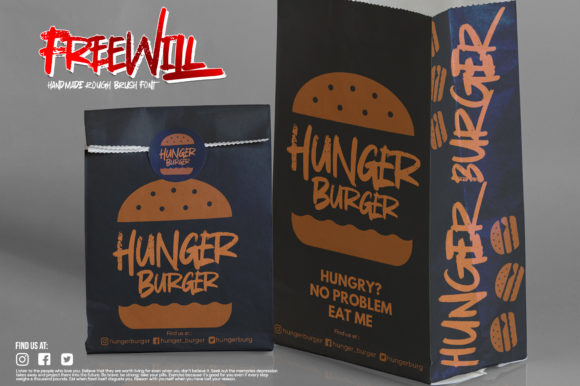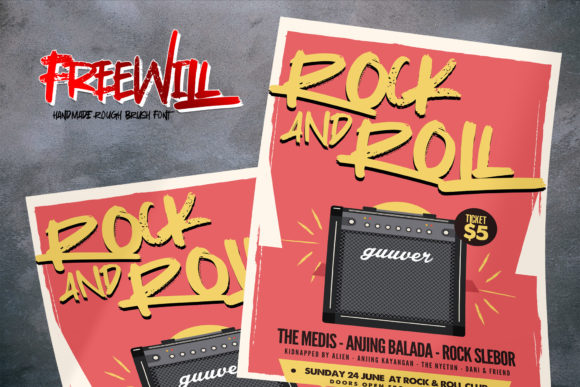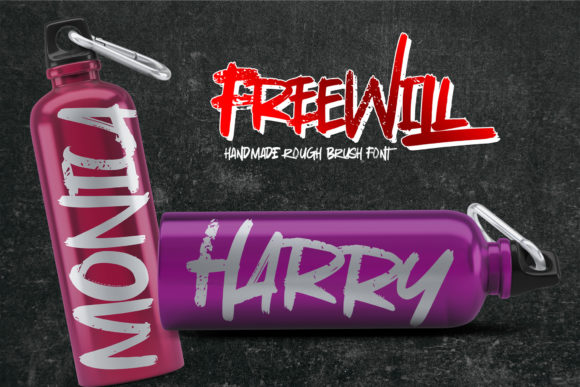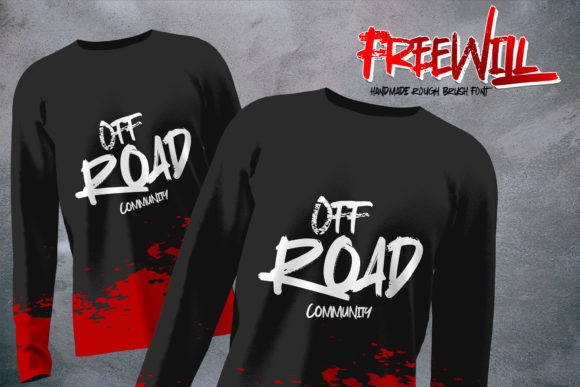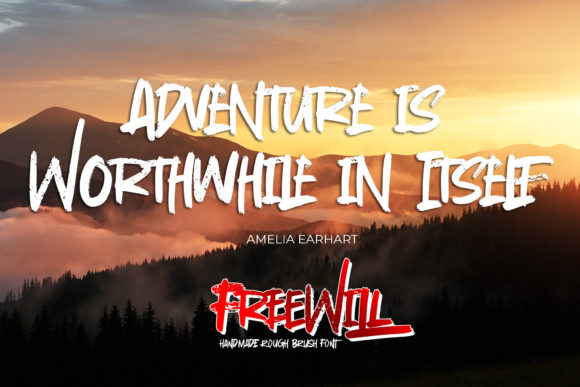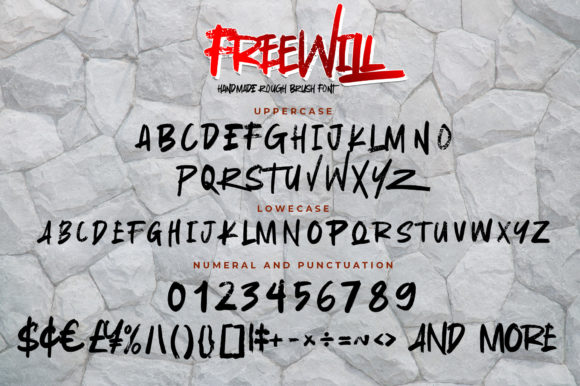
Introducing Freewill Font: The Handmade Rough Brush Font for Creative Designs
Are you a designer or crafter looking for a unique and versatile font to elevate your creative projects? Look no further than Freewill Font, a handmade rough brush font inspired by the famous minimalist logo. With its distinctive texture and rustic charm, Freewill Font is perfect for a wide range of design applications, from brochures and videos to logos, posters, and more.
What is Freewill Font?
Freewill Font is a carefully crafted, handmade rough brush font that exudes a sense of creativity and playfulness. Its rough, textured strokes and irregularities give it a charming, organic feel that’s perfect for designs that require a personal touch. Whether you’re looking to create eye-catching headlines, logos, or posters, Freewill Font is the perfect choice.
Inspiration and Design
Freewill Font draws inspiration from the famous minimalist logo, with a modern twist. The font’s design is characterized by its rough, brush-like strokes and irregularities, which give it a unique, handmade feel. The font’s creator aimed to capture the essence of a rough, hand-painted brush stroke, and the result is a font that’s both elegant and playful.
Use Cases for Freewill Font
Freewill Font is an incredibly versatile font that can be used in a wide range of design applications, including:
- Design templates: Use Freewill Font to create stunning design templates for brochures, flyers, and other marketing materials.
- Videos and advertising: Add a touch of personality to your video scripts and advertisements with Freewill Font.
- Branding and logos: Create memorable logos and brand identities with Freewill Font’s unique, handmade feel.
- Posters and packaging: Use Freewill Font to create eye-catching posters, packaging, and labels for products.
- Coffee shops and restaurants: Add a touch of warmth and personality to your coffee shop or restaurant’s branding with Freewill Font.
- Magazine headers and signs: Use Freewill Font to create striking magazine headers, signs, and posters.
- Gift/postcards and weddings: Add a personal touch to your gift postcards, wedding invitations, and other special occasion designs.
Special Use Cases: Halloween, Horror, and Children’s Books
Freewill Font is also perfect for designs that require a spooky or playful touch. Some special use cases include:
- Halloween posters: Create spooky and eye-catching Halloween posters with Freewill Font’s rough, textured strokes.
- Horror posters: Use Freewill Font to create eerie and unsettling horror posters that will leave your audience on the edge of their seats.
- Children’s books and cartoons: Add a playful and whimsical touch to your children’s books, cartoons, and comics with Freewill Font.
Why Choose Freewill Font?
So why choose Freewill Font for your design projects? Here are just a few reasons:
- Unique and handmade: Freewill Font is a one-of-a-kind, handmade font that will add a personal touch to your designs.
- Versatile: Freewill Font can be used in a wide range of design applications, from brochures and videos to logos and posters.
In conclusion, Freewill Font is a versatile and unique handmade rough brush font that’s perfect for designers and crafters looking to add a personal touch to their creative projects. With its rough, textured strokes and irregularities, Freewill Font is sure to elevate your designs and make them stand out. Whether you’re looking to create stunning brochures, eye-catching posters, or memorable logos, Freewill Font is the perfect choice.